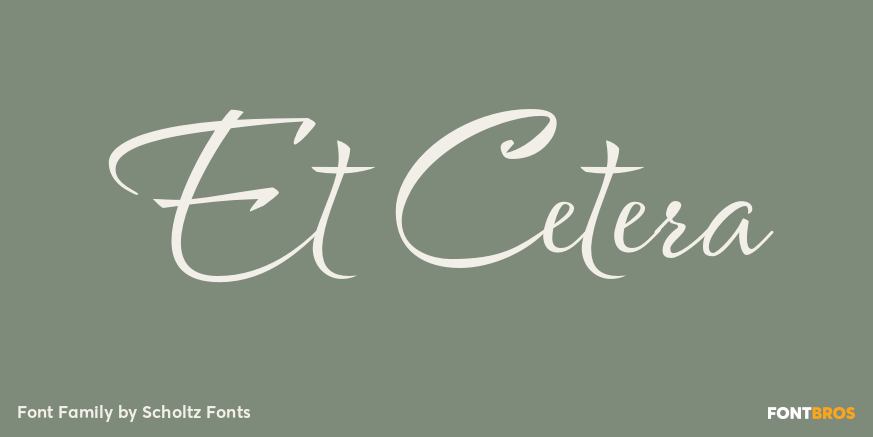
Et Cetera
About Et Cetera
Et Cetera is a beautiful, hand-lettered script. It abounds in OpenType features such as terminal swashes and ligatures and is best used with OpenType savvy software with the \’standard ligatures? and ?contextual alternates? features turned ON. Et Cetera…